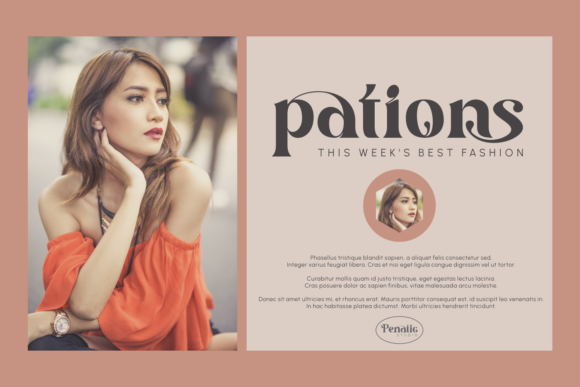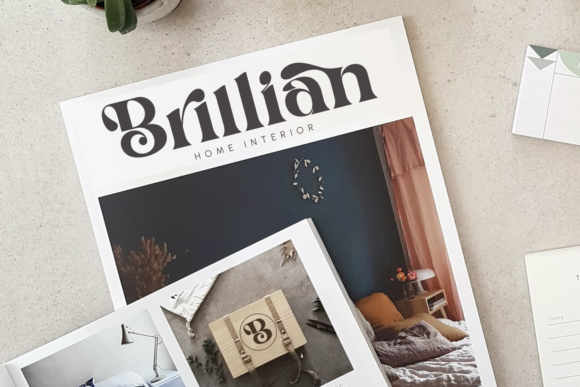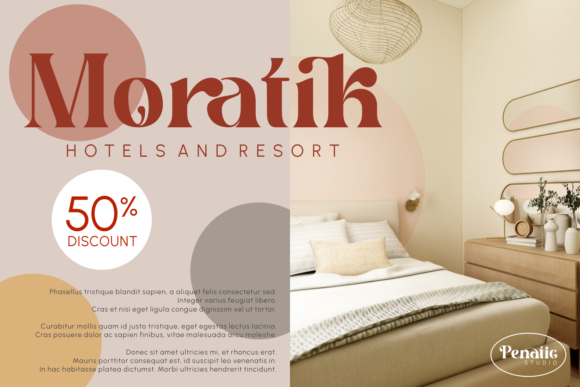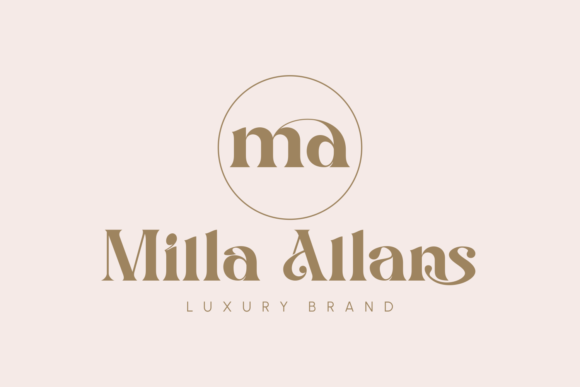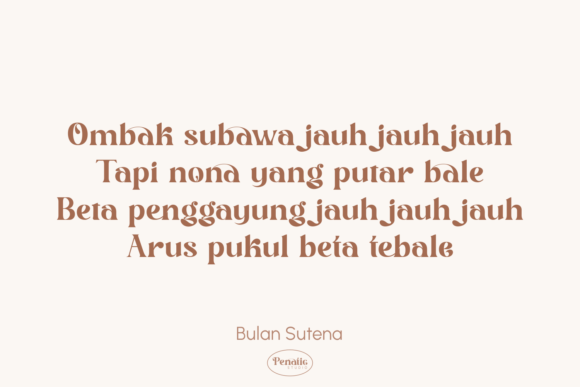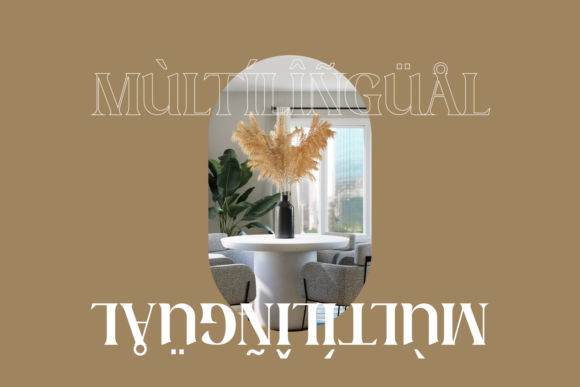
Introducing Attena Font: A Modern Serif Typeface for Creative Designs
In the world of typography, a font can make or break a design. For designers and crafters, finding the perfect typeface that combines style, versatility, and functionality is a constant quest. Look no further than Attena Font, a modern serif font that is taking the design world by storm. In this article, we’ll dive into the features, benefits, and uses of Attena Font, and explore why it’s becoming a go-to choice for creative professionals.
What is Attena Font?
Attena Font is a modern serif typeface designed with a keen eye for detail and a passion for creativity. This beautiful font is characterized by its elegant lines, refined curves, and a perfect balance of thick and thin strokes. What sets Attena apart is its extensive range of ligatures and alternatives, making it an incredibly versatile font suitable for a wide range of design applications.
Key Features of Attena Font
- Modern and Classic Style: Attena Font boasts a modern look and feel while maintaining a classic edge, thanks to the carefully crafted character thickness. This makes it perfect for designs that require a touch of sophistication and elegance.
- Ligatures and Alternatives: With numerous ligatures and alternatives, Attena Font offers designers the flexibility to create unique and eye-catching text arrangements. Whether you’re designing a logo, invitation card, or poster, this font has got you covered.
- PUA Encoding: Attena Font is PUA (Private Use Area) encoded, which means that accessing glyphs and swashes is a breeze. This feature allows designers to easily navigate and experiment with the font’s various elements, making the design process more efficient and enjoyable.
Use Cases for Attena Font
Attena Font is an incredibly versatile typeface that can be used in a variety of design projects, including:
- Brand Identity: Create a lasting impression with Attena Font, perfect for logos, business cards, and brand guidelines.
- Invitation Cards: Add a touch of elegance and sophistication to your invitation designs, ideal for weddings, parties, and formal events.
- Poster Designs: Make a statement with Attena Font, suitable for posters, flyers, and brochures that require a modern and classic look.
- Digital and Print Media: Use Attena Font in digital and print media, such as magazines, newspapers, and websites, to add a level of refinement and style.
Why Choose Attena Font?
With so many fonts available, why choose Attena Font? Here are just a few reasons why designers and crafters are falling in love with this modern serif typeface:
- Unique and Creative: Attena Font offers a distinctive look that will set your designs apart from the crowd.
- Ease of Use: With PUA encoding, accessing glyphs and swashes is easy, making the design process more efficient.
- Versatility: Attena Font can be used in a wide range of design applications, from brand identity to digital media.
In conclusion, Attena Font is a modern serif typeface that is sure to impress designers and crafters alike. With its elegant lines, refined curves, and extensive range of ligatures and alternatives, this font is perfect for creative professionals looking to add a touch of sophistication and style to their designs. Whether you’re working on a brand identity project, invitation card, or poster design, Attena Font is an excellent choice. So why wait? Give Attena Font a try today and experience the power of beautiful typography!